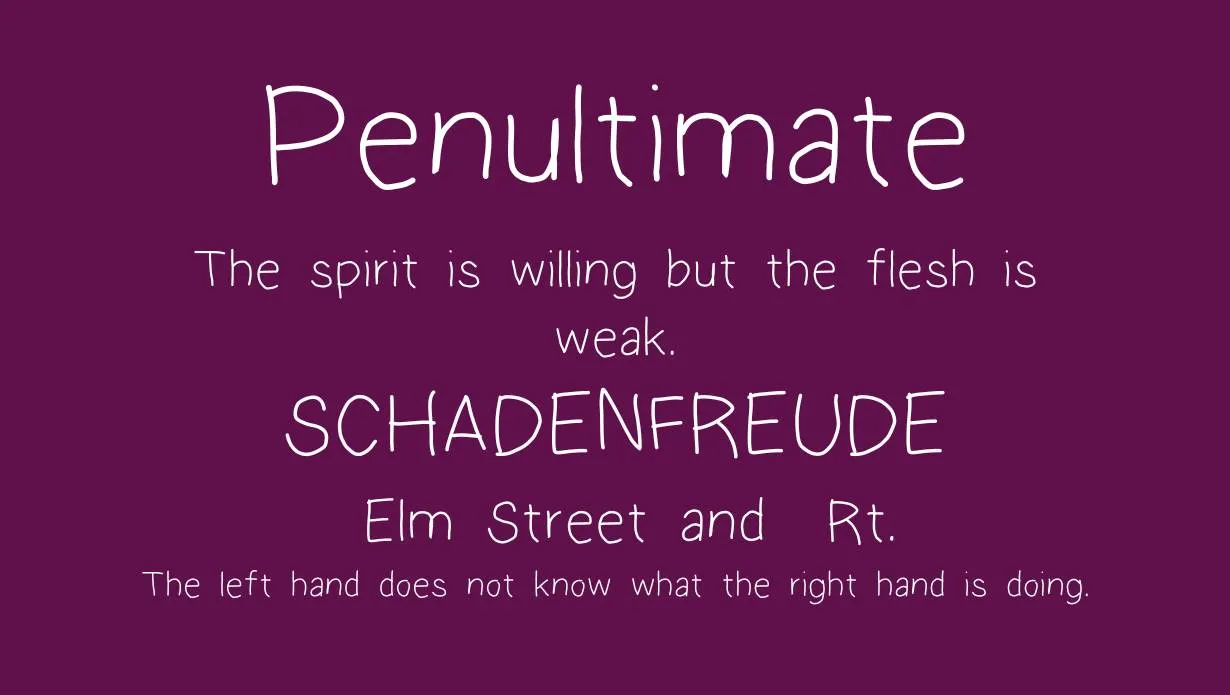
Handwriting Mutlu is a friendly and approachable script typeface designed to resemble casual handwriting. Its easygoing and informal style makes it a popular choice for projects that aim to convey warmth and friendliness.
Whether used in personal notes, social media graphics, or informal invitations, Handwriting Mutlu adds a touch of authenticity and human connection to the written word.
| Designer | Ryoichi Tsunekawa |
| Style | Handwritten |